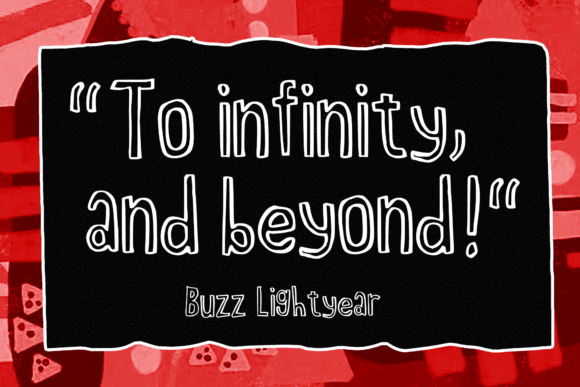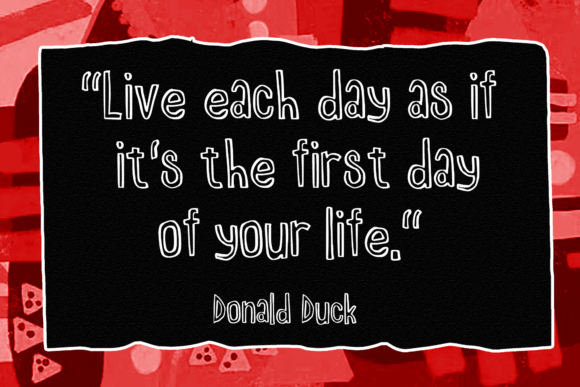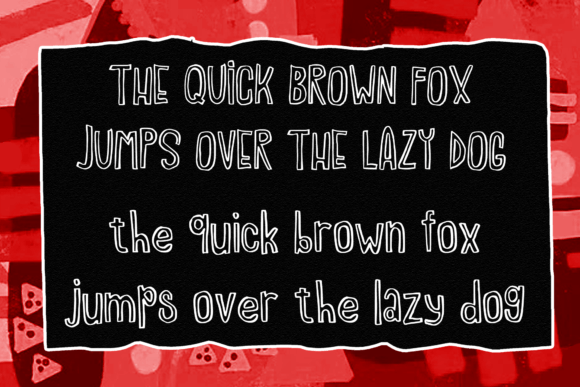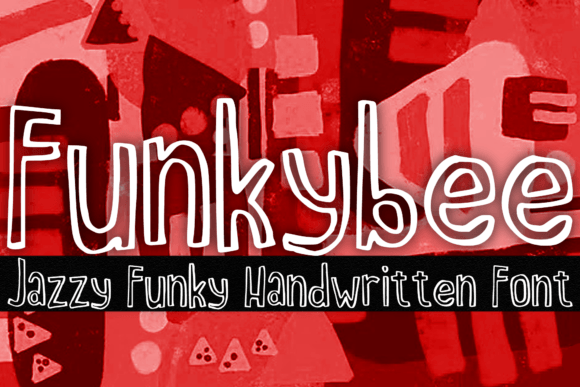
Funkybee Font: Unleash Your Creativity with this Basquiat-Inspired Display Font
Are you tired of using the same old fonts for your designs? Look no further! Introducing Funkybee, a fun, sketchy, and funky Basquiat-themed display font that’s perfect for adding a casual touch to your creations. In this article, we’ll dive into the world of Funkybee and explore its versatility, uses, and benefits for designers and crafters.
What is Funkybee Font?
Funkybee is a unique and eye-catching display font inspired by the iconic artist Jean-Michel Basquiat. This font is designed to bring a touch of playfulness and creativity to your designs, making it perfect for a wide range of projects, from greeting cards to stickers, posters, and more.
Key Features of Funkybee Font
• Basquiat-inspired design: Funkybee’s design is heavily influenced by Basquiat’s distinctive style, characterized by bold lines, vibrant colors, and a mix of graffiti and abstract elements.
• Fun and sketchy feel: This font has a carefree, hand-drawn feel that’s perfect for adding a personal touch to your designs.
• Highly versatile: Funkybee can be used for a wide range of projects, from digital designs to print materials.
• Easy to read: Despite its playful design, Funkybee is surprisingly easy to read, making it perfect for headlines, titles, and short paragraphs.
Uses for Funkybee Font
Funkybee’s versatility makes it suitable for a wide range of projects, including:
• Greeting cards: Add a personal touch to your greeting cards with Funkybee’s playful design.
• Stickers: Create eye-catching stickers for parties, events, or promotions.
• Posters: Use Funkybee to create bold and colorful posters for concerts, exhibitions, or product launches.
• Social media graphics: Add a touch of personality to your social media graphics, such as Instagram posts or Facebook banners.
• Branding and packaging: Use Funkybee to create unique and memorable branding and packaging designs.
Funkybee offers several benefits for designers and crafters, including:
• Unique designs: Funkybee’s distinctive design ensures that your projects stand out from the crowd.
• Time-saving: With Funkybee, you can create stunning designs in no time, thanks to its easy-to-use and highly legible design.
• Inspiration: Funkybee’s Basquiat-inspired design is sure to spark your creativity and inspire new ideas.
Tips for Using Funkybee Font
To get the most out of Funkybee, here are some tips to keep in mind:
• Experiment with colors: Funkybee’s design lends itself perfectly to bold and bright colors, so don’t be afraid to get creative!
• Mix and match: Combine Funkybee with other fonts or design elements to create unique and eye-catching designs.
• Keep it simple: Don’t overcomplicate your design – Funkybee’s simplicity is part of its charm.
In conclusion, Funkybee is a fun, versatile, and highly creative font that’s perfect for designers and crafters looking to add a touch of personality to their projects. With its Basquiat-inspired design, easy-to-use interface, and highly legible text, Funkybee is sure to become a go-to font in your collection. So why wait? Download Funkybee today and unleash your creativity!